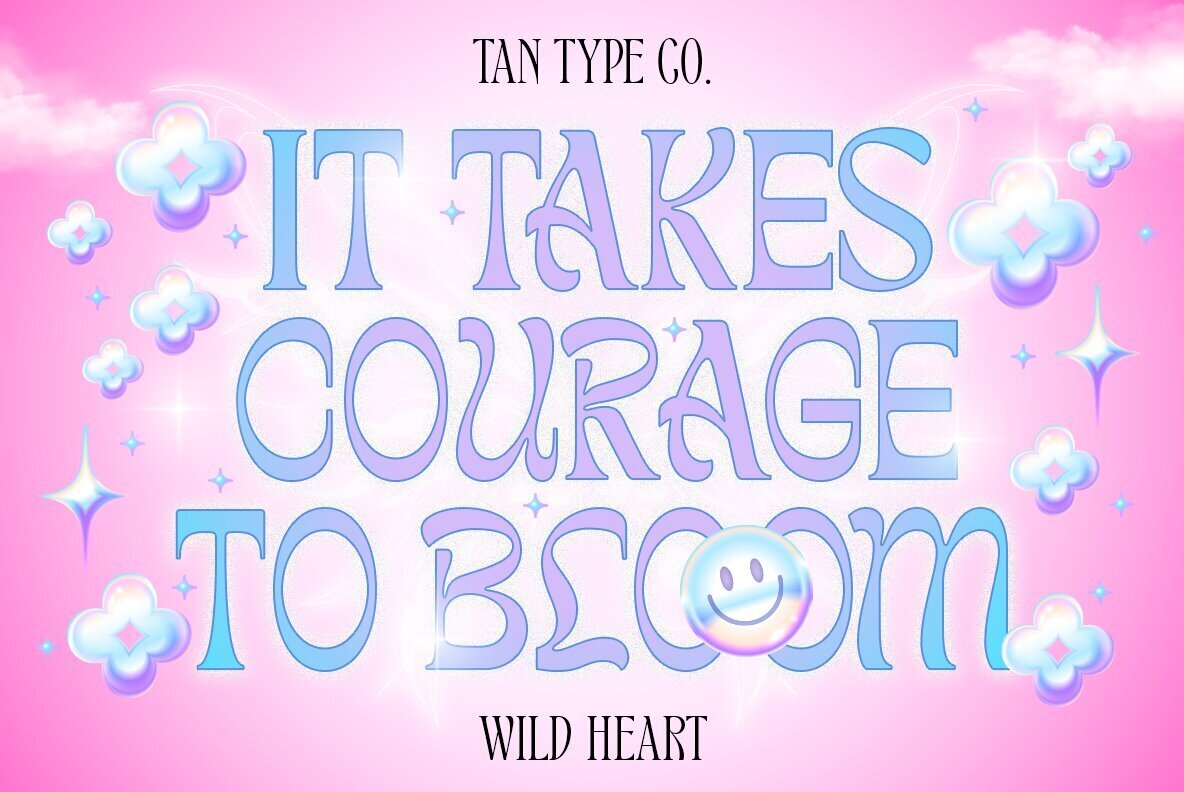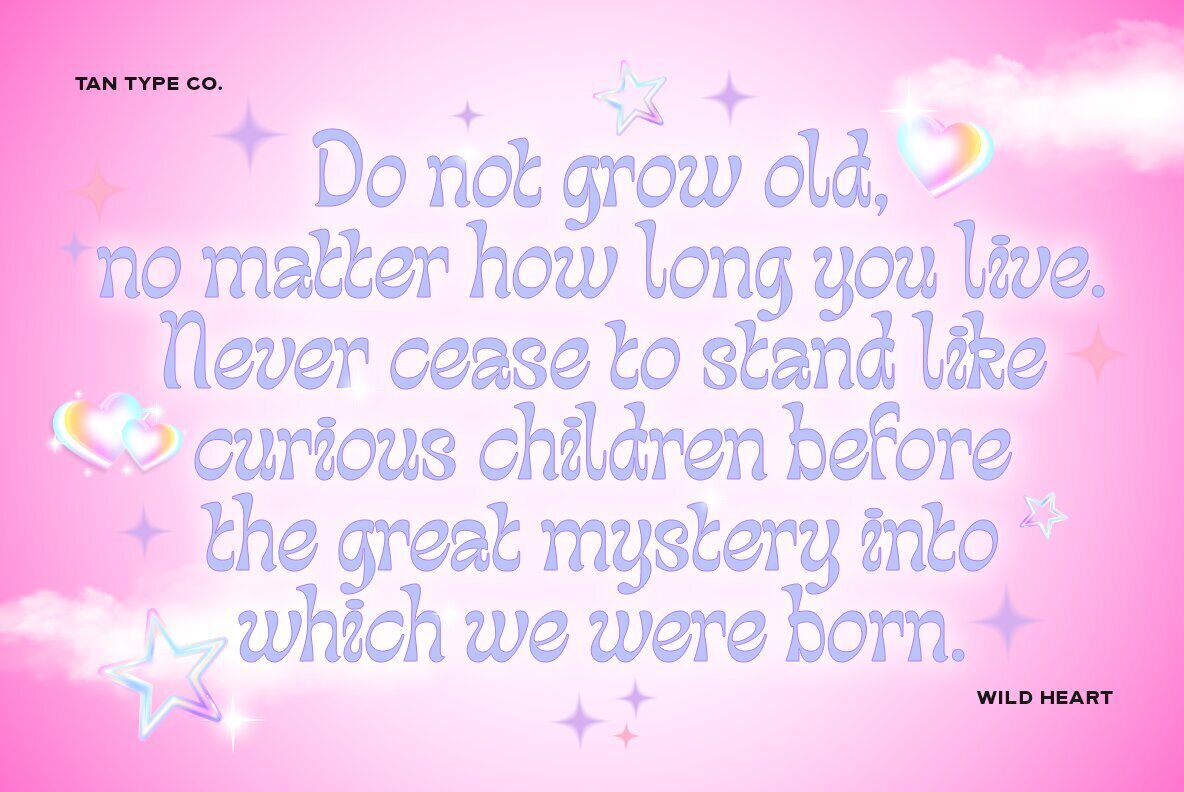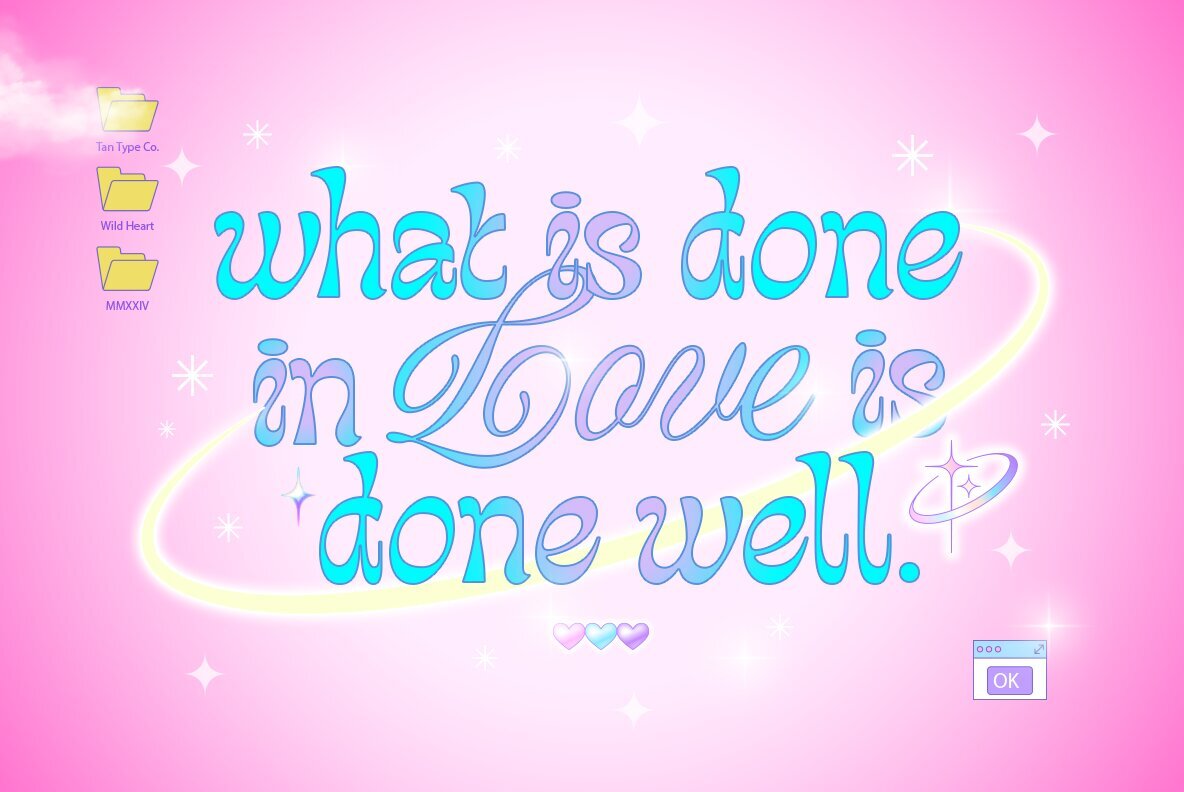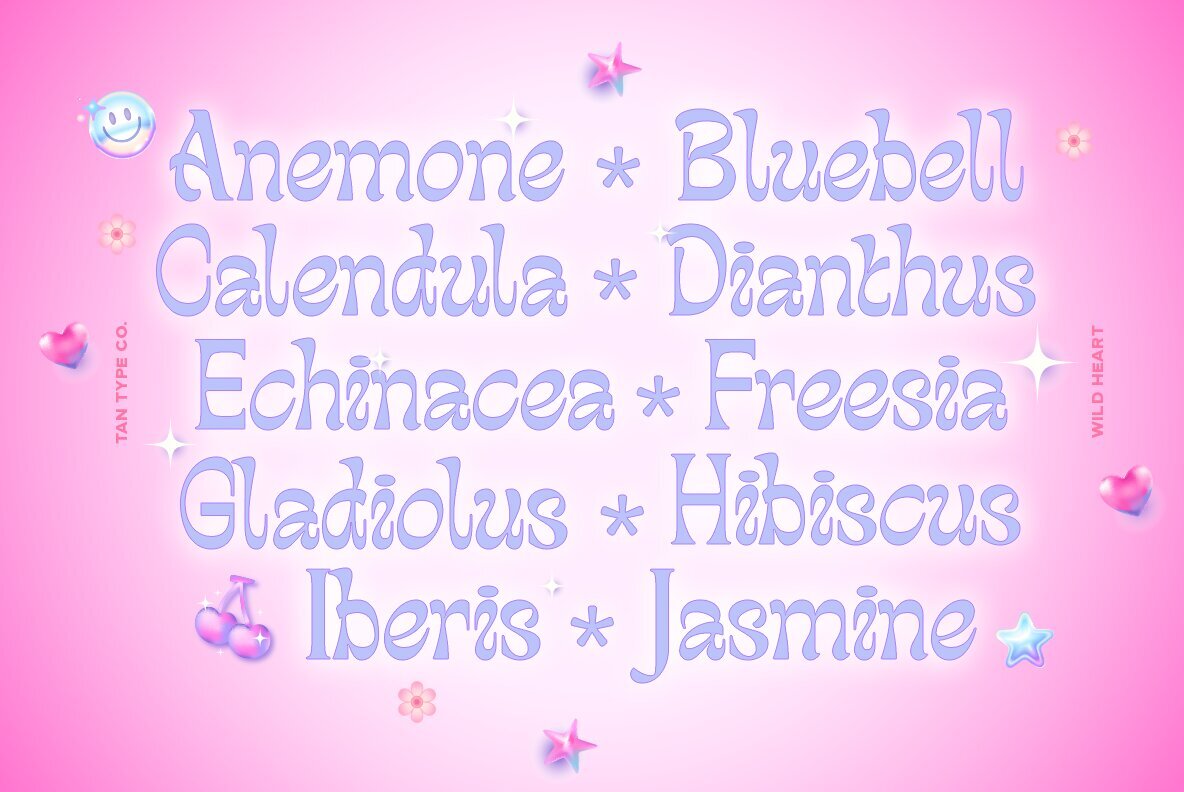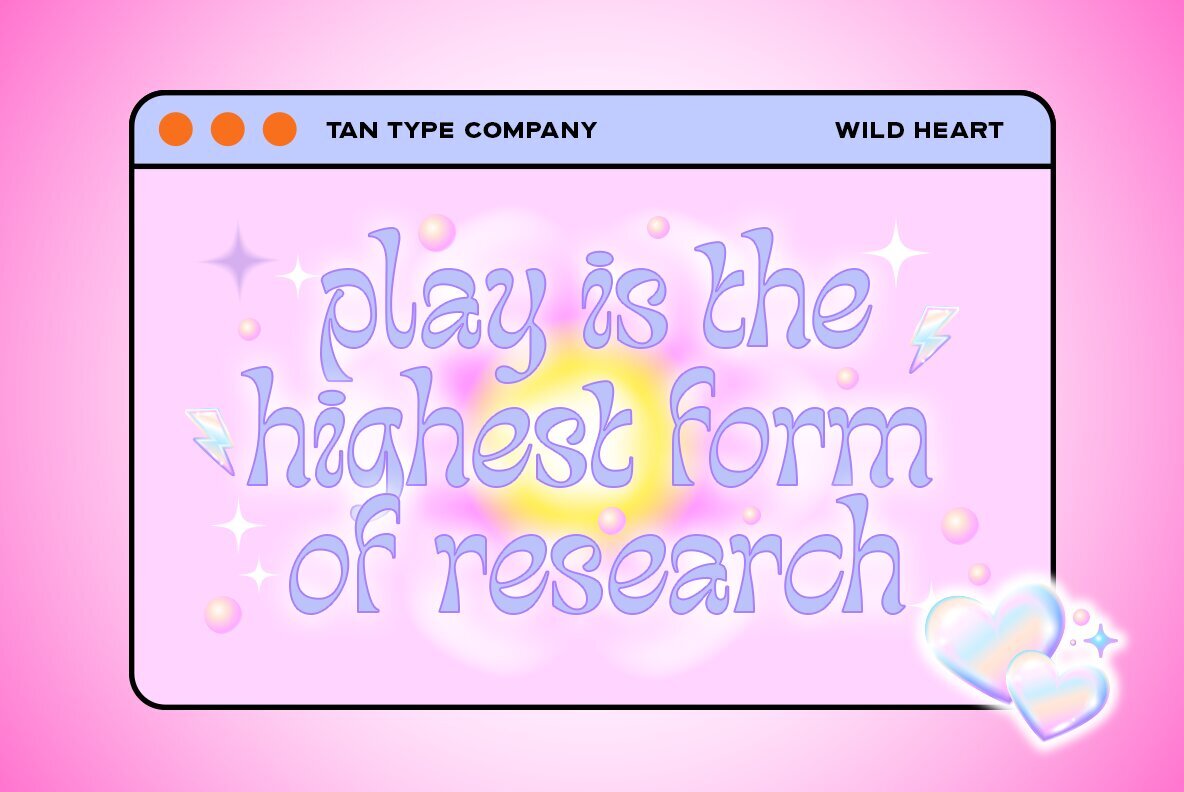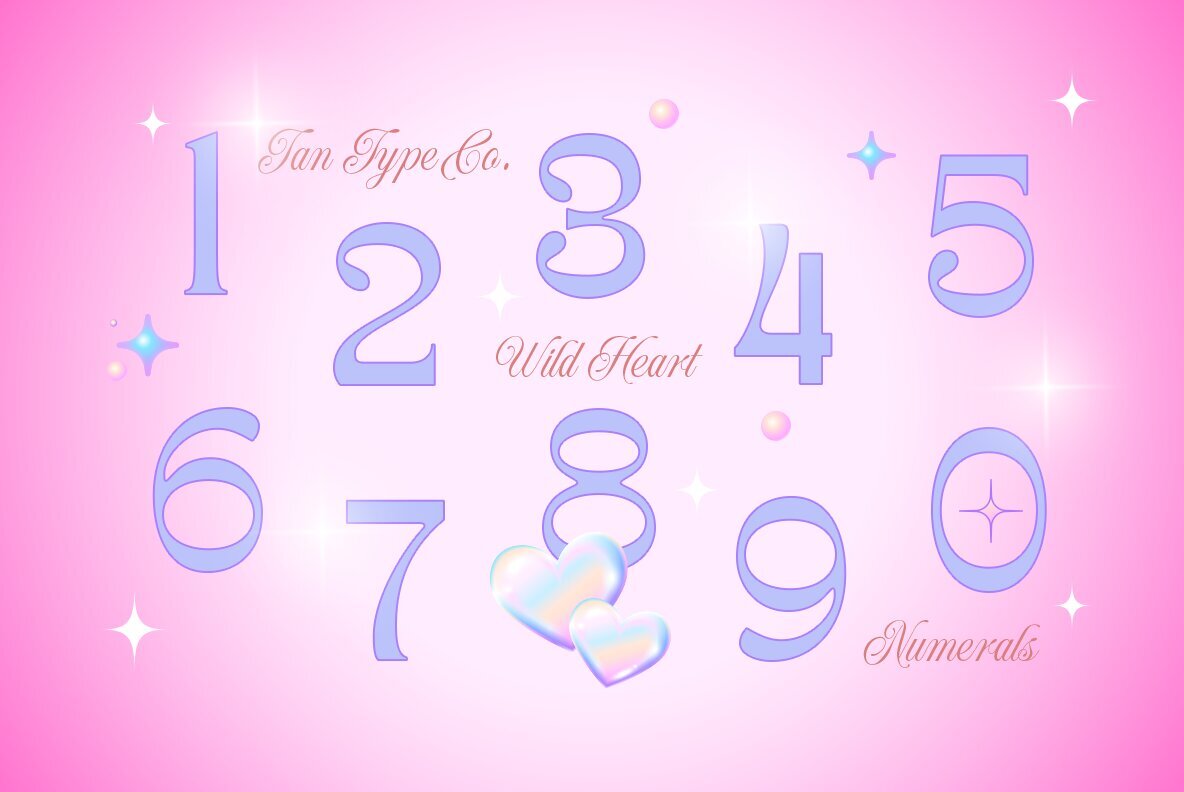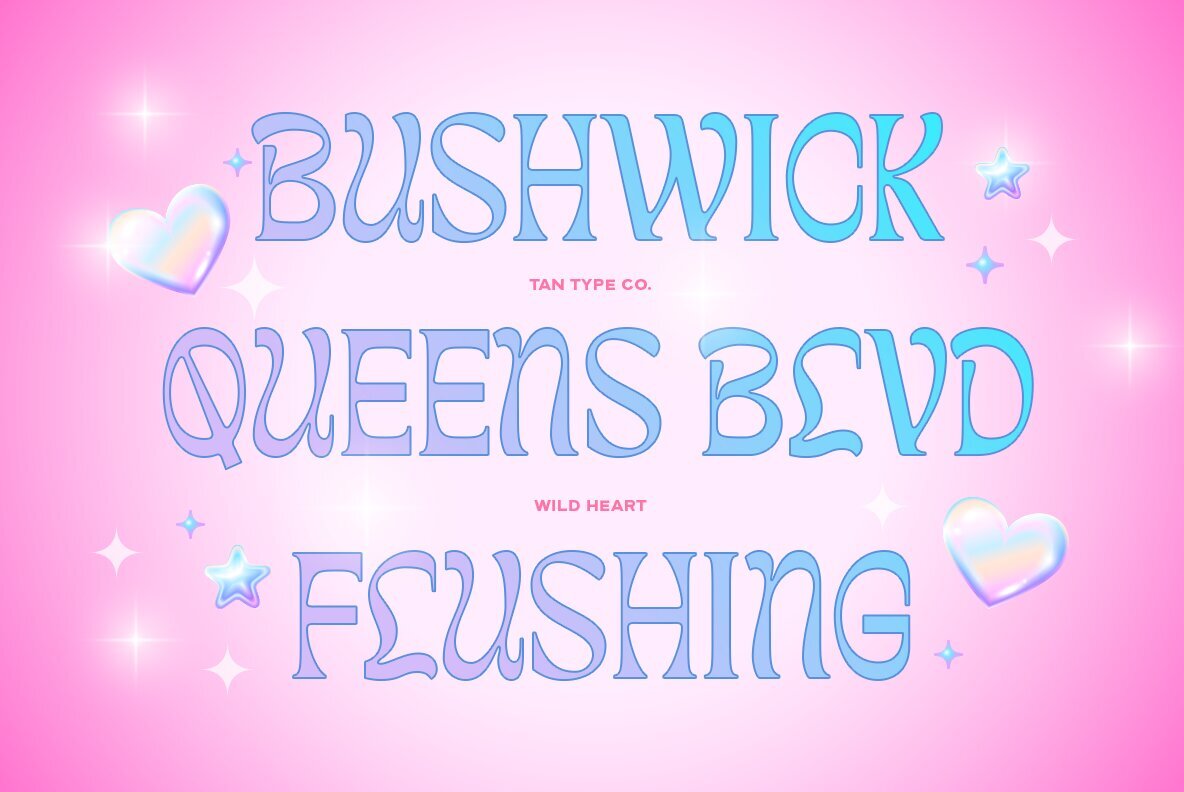
Wild Heart is a striking display serif crafted for those seeking a bold and unique typeface. Its design carries a playful, retro Y2K vibe that adds character and flair to any project. Whether you're designing posters, branding materials, or digital content, Wild Heart stands out with its distinct style, making your work memorable and engaging.
This typeface is ideal for projects that demand a visual punch and a bit of nostalgia. With its fun and unconventional appearance, Wild Heart is perfect for creative ventures that want to break free from the mundane. Inject a dose of vibrant personality into your designs with this captivating serif.